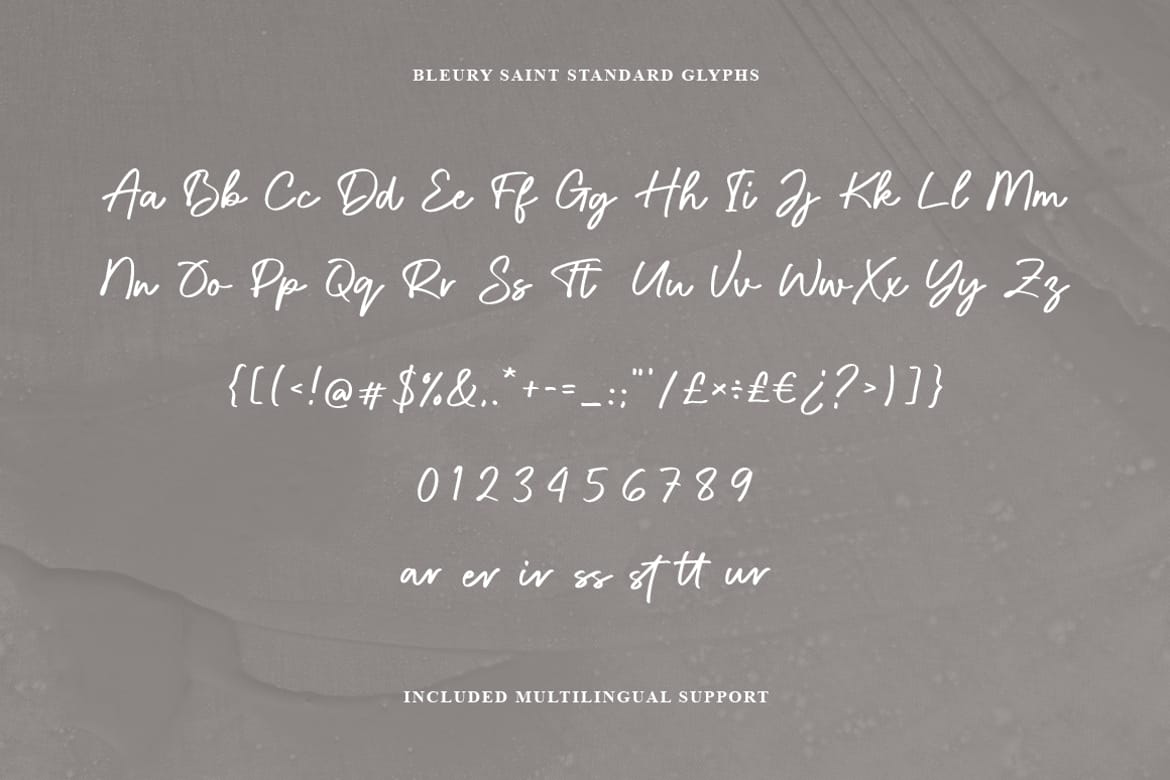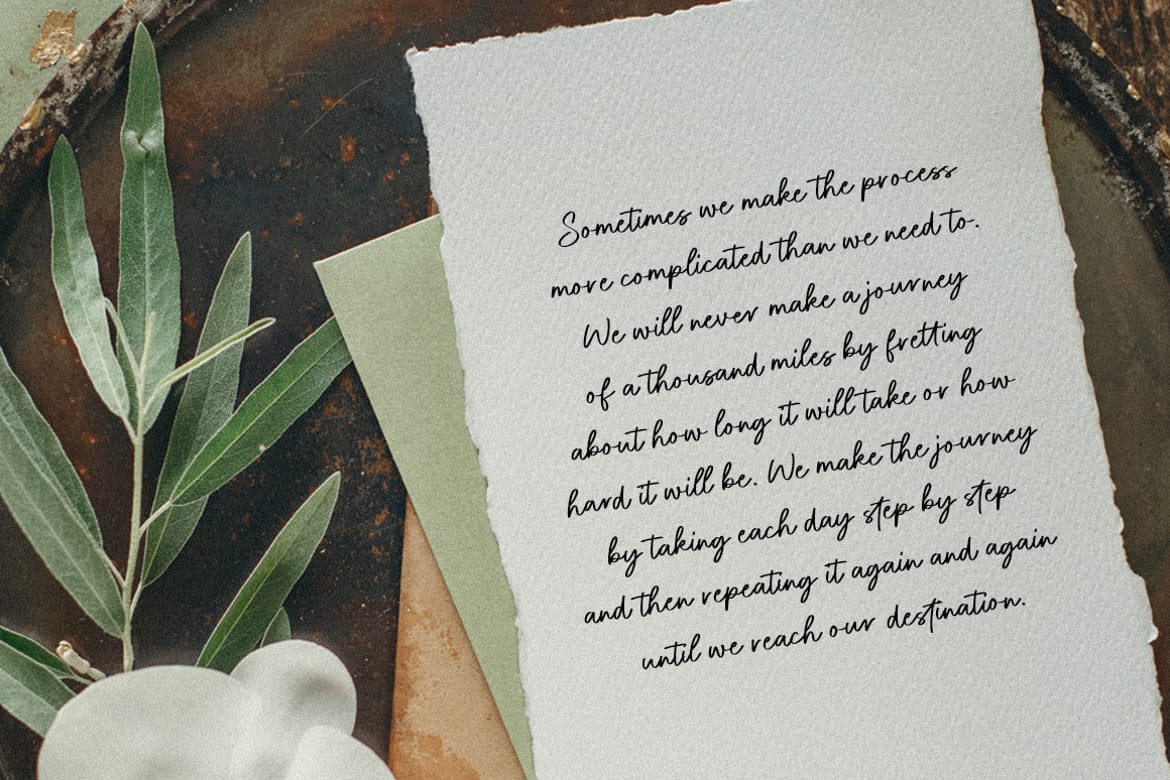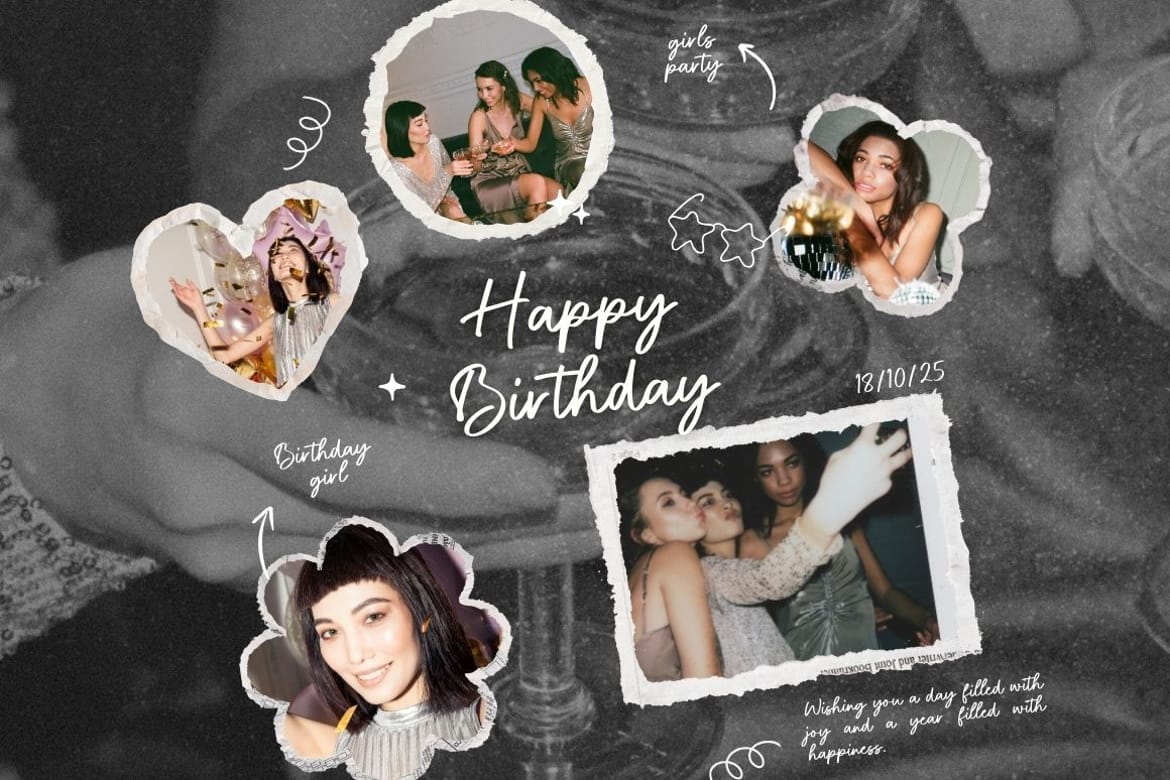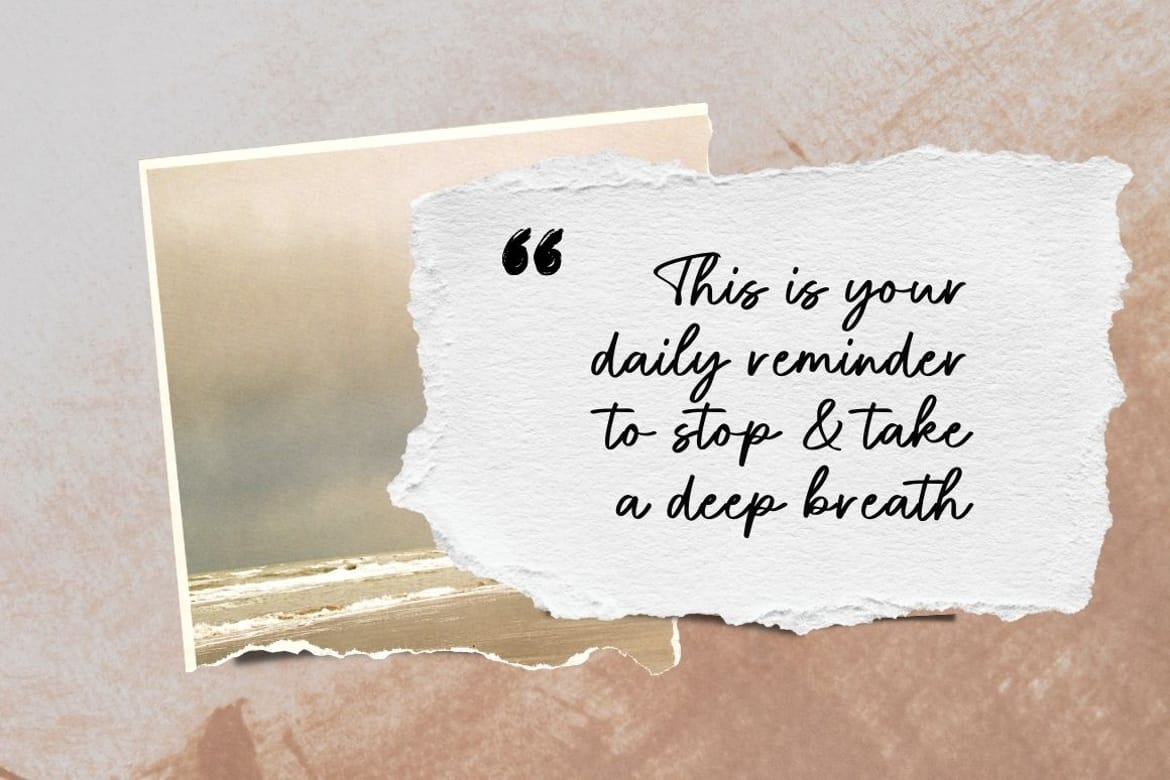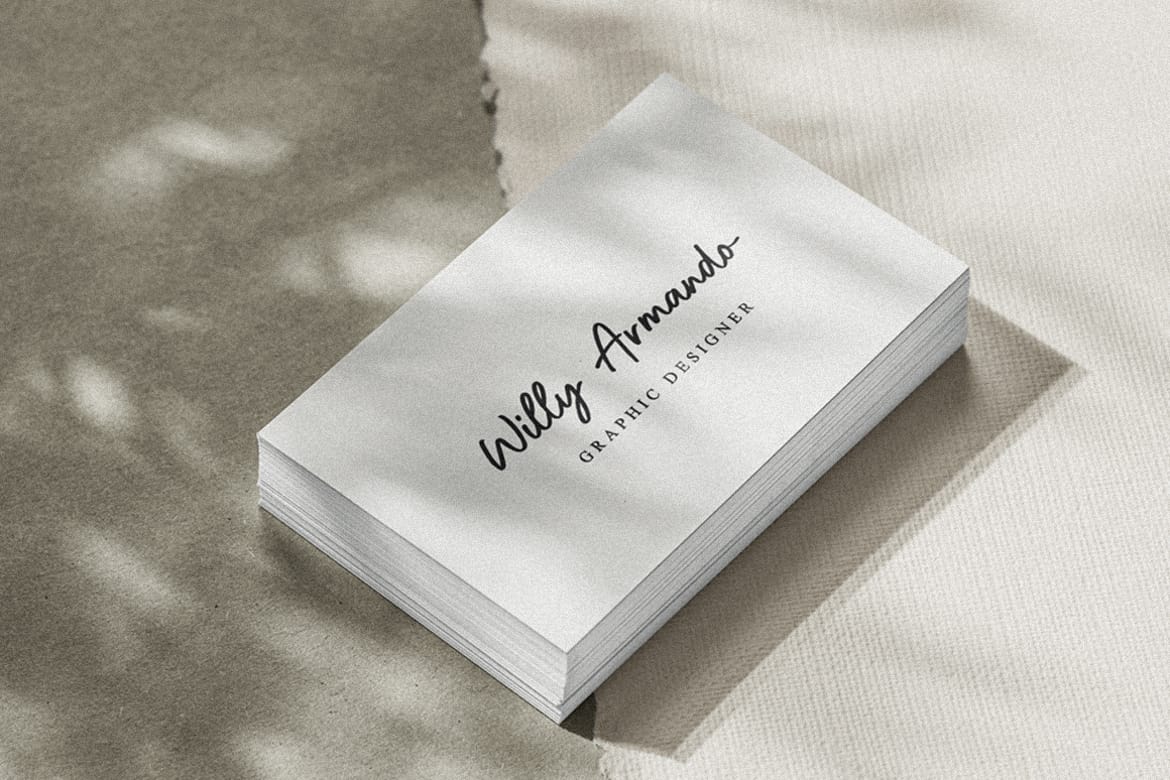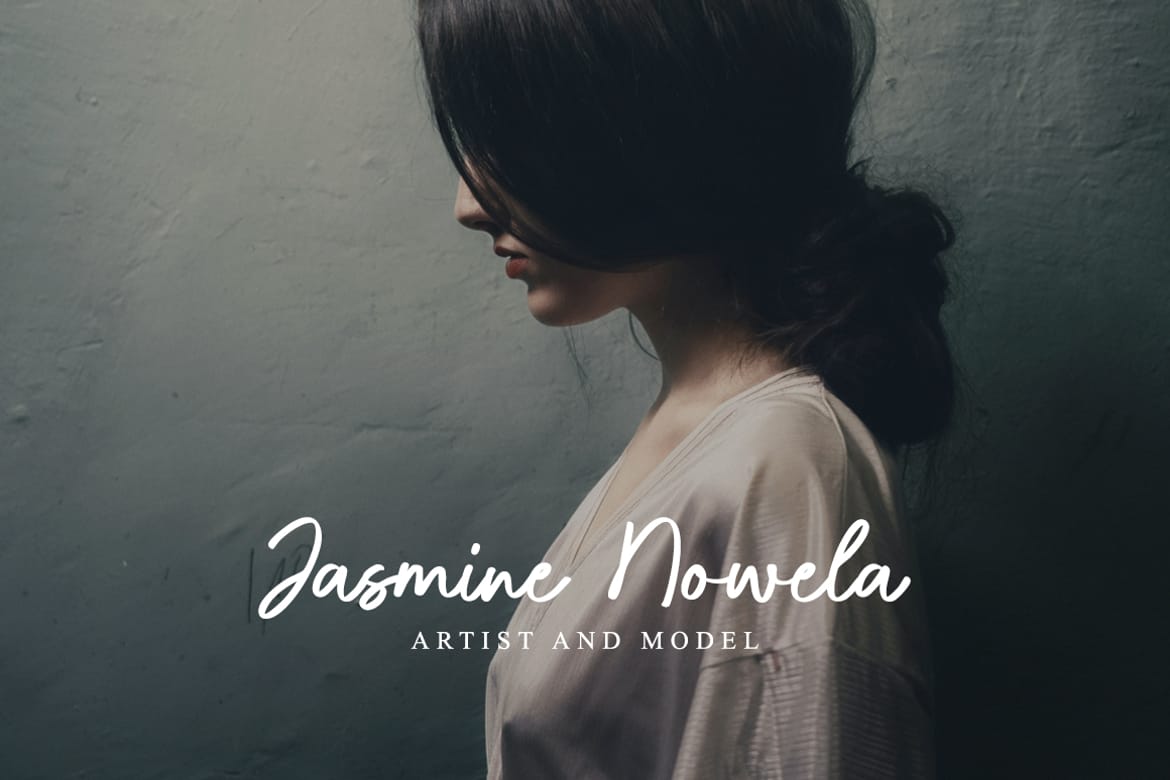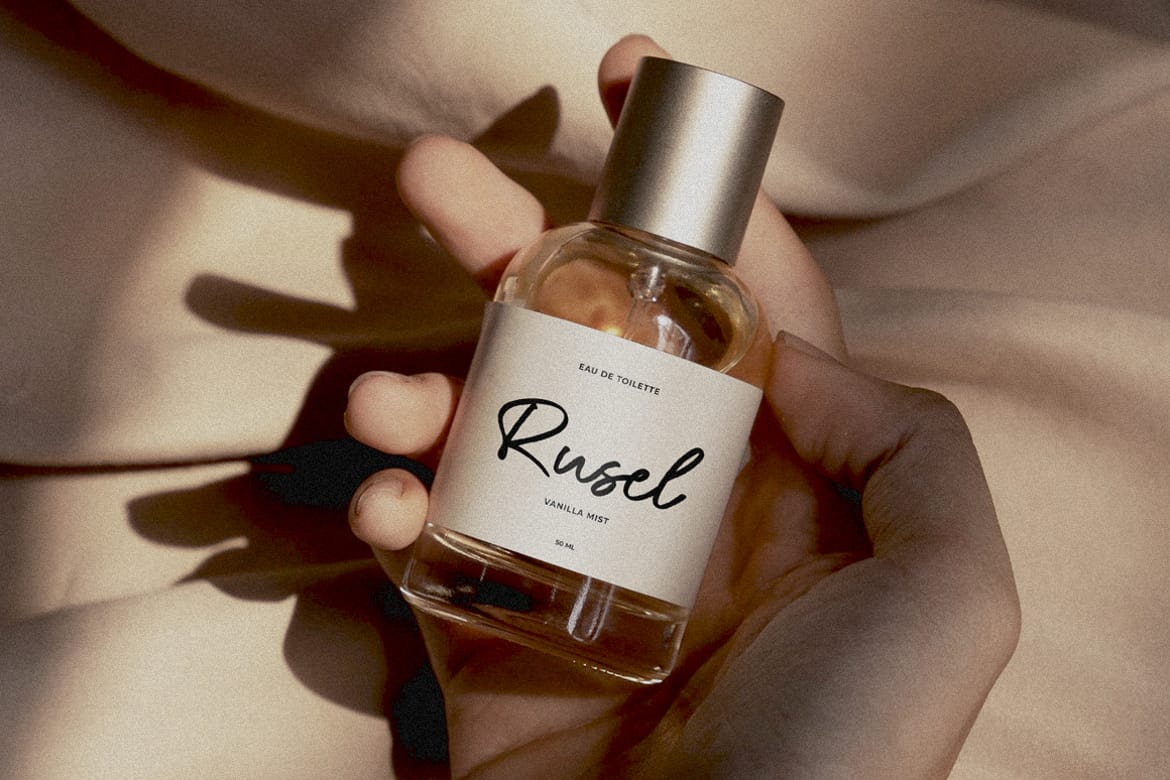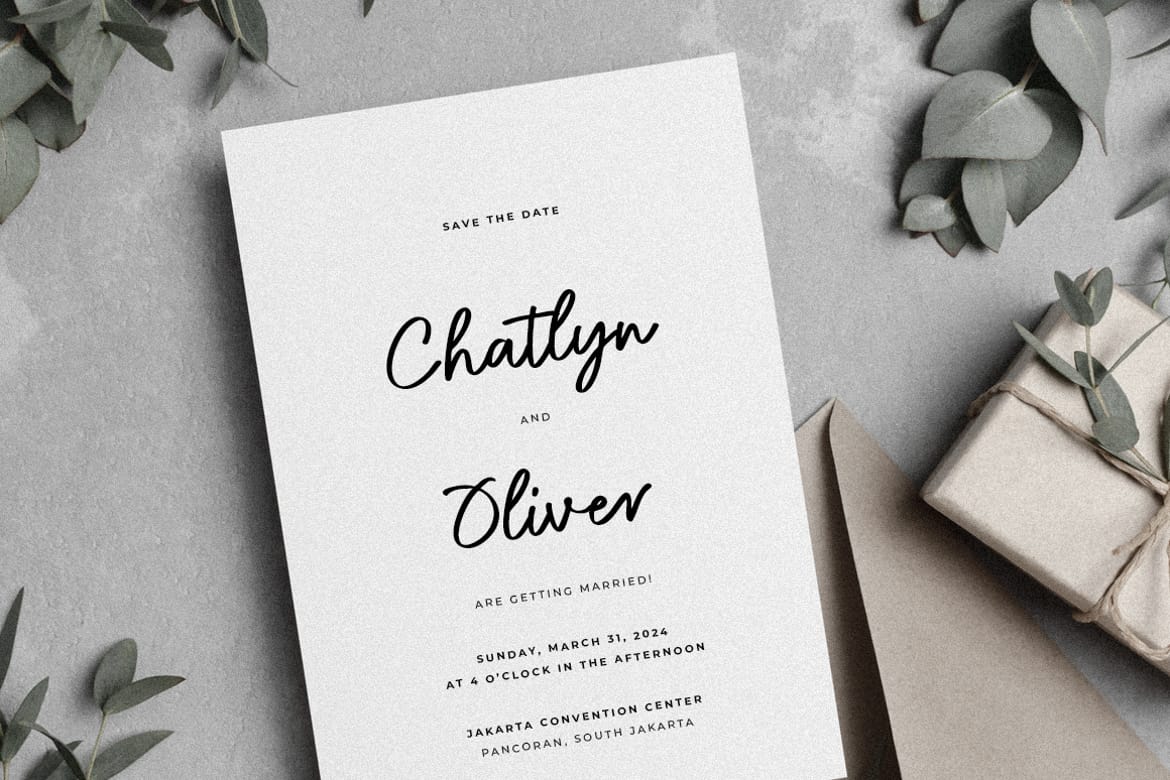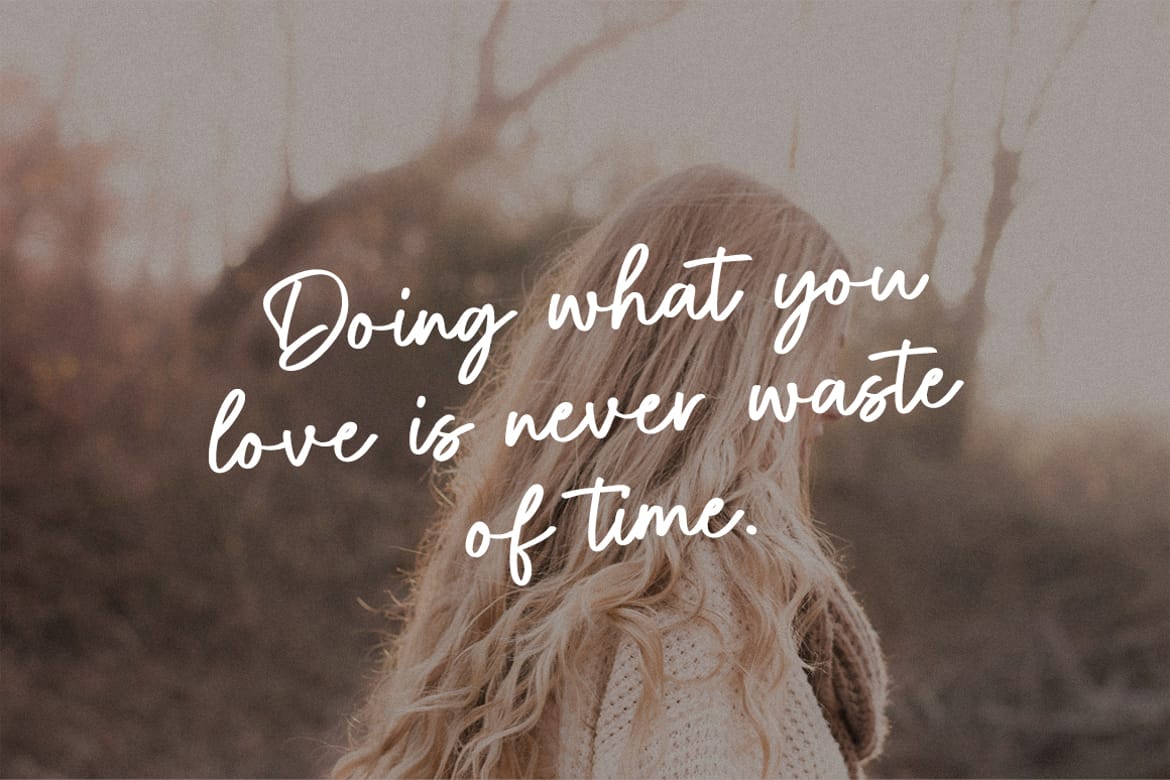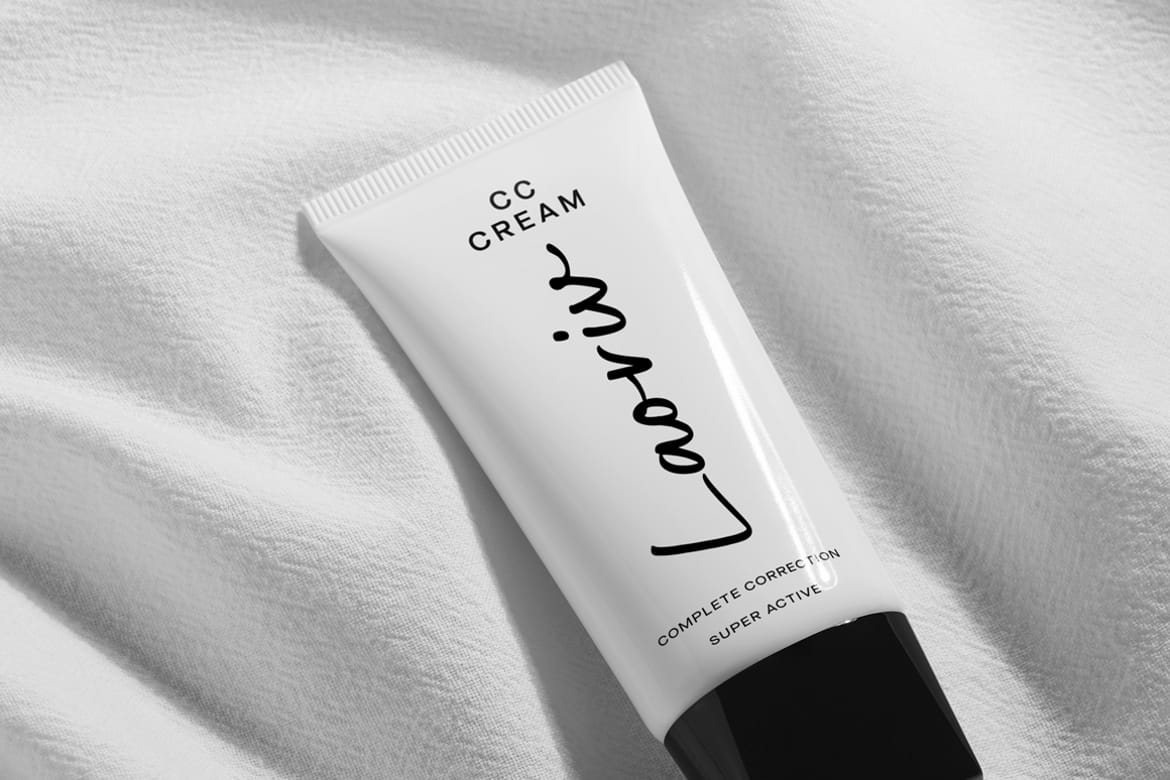
Bleury Saint is a modern script font that blends elegant handwritten curves with a luxurious contemporary style. Designed with smooth flowing strokes and natural brush movement, this typeface delivers a romantic and sophisticated look perfect for branding, wedding invitations, logos, social media, packaging, photography, fashion editorials, and premium product designs. The graceful letterforms create a stylish signature feel while maintaining excellent readability for both digital and print projects.
Bleury Saint brings a timeless aesthetic with artistic swashes and refined details that make every design feel personal, classy, and expressive. Whether you are creating feminine branding, modern boutique logos, beauty packaging, or elegant typography layouts, this script font adds charm and professionalism to your creative work.
Its versatile character makes it suitable for luxury branding, modern calligraphy themes, lifestyle content, cosmetic brands, cafés, apparel labels, and inspirational quotes. Bleury Saint is crafted to help designers achieve a premium handwritten appearance with effortless beauty and modern elegance.
- Multilingual Support
- Ligatures